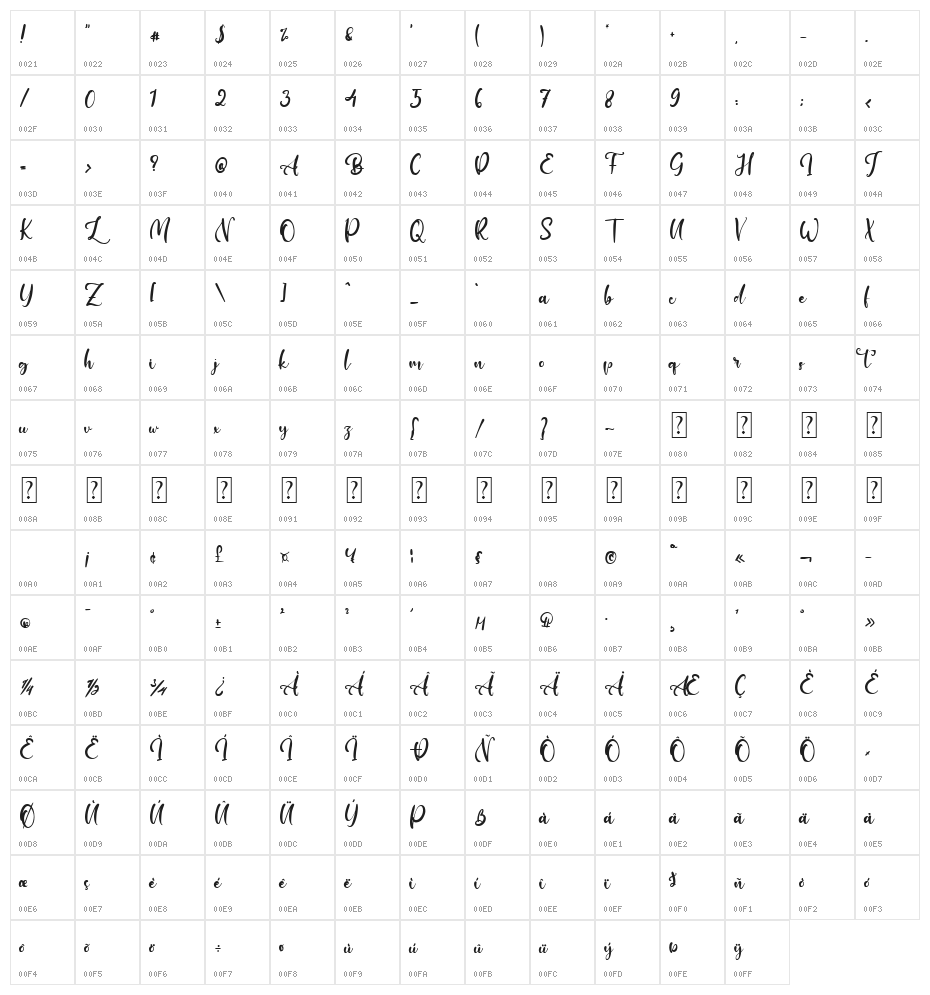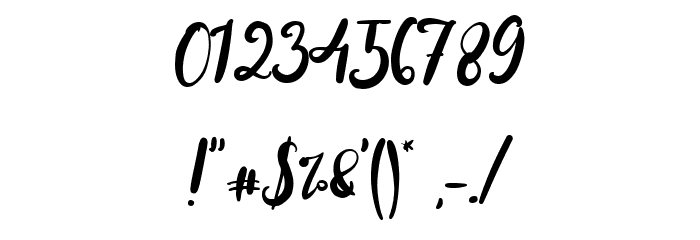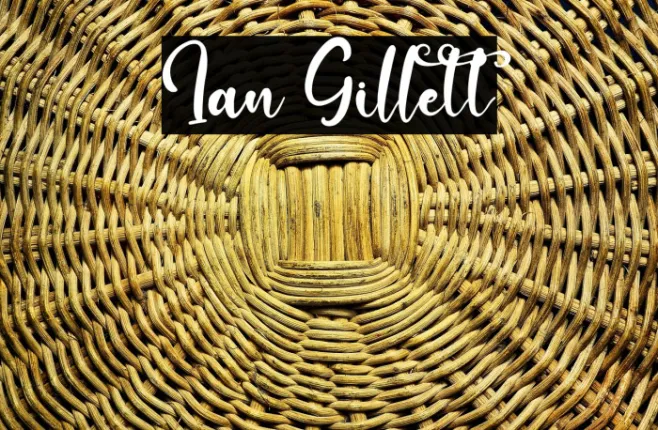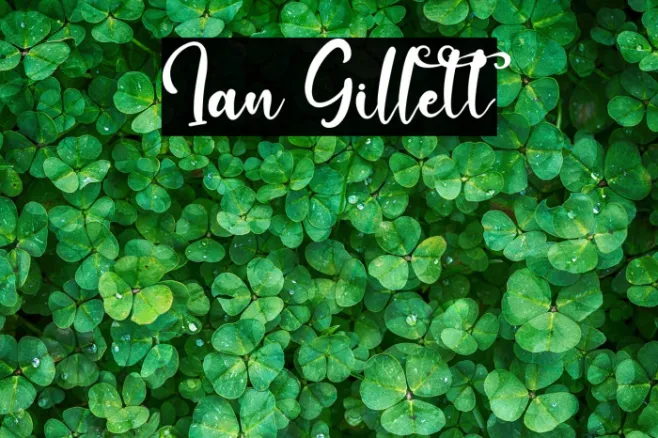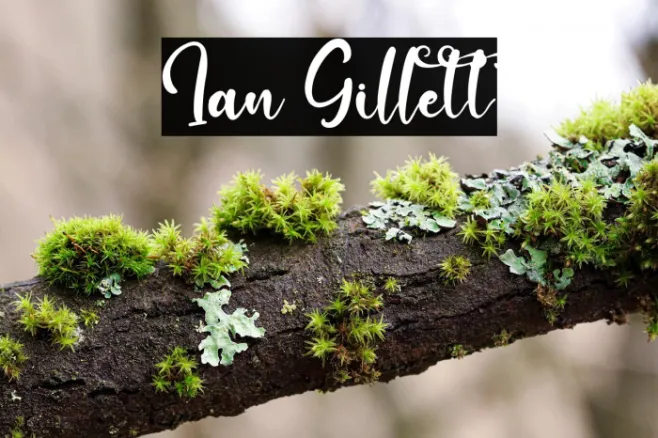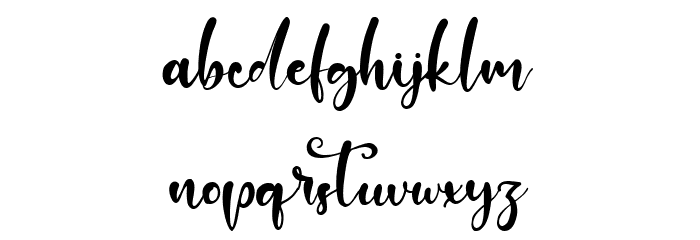
Ian Gillett Font
Ian Gillett Description
This font features a dynamic and flowing script style, characterized by its elegant and cursive letterforms. The uppercase letters exhibit a graceful, sweeping motion with varying stroke widths, adding a sense of movement and sophistication. The lowercase letters maintain a consistent fluidity, with smooth connections between characters that enhance readability. Numbers and special characters are designed with the same attention to detail, ensuring a cohesive appearance across all glyphs. The overall impression is one of elegance and charm, making it suitable for projects that require a personal or artistic touch.